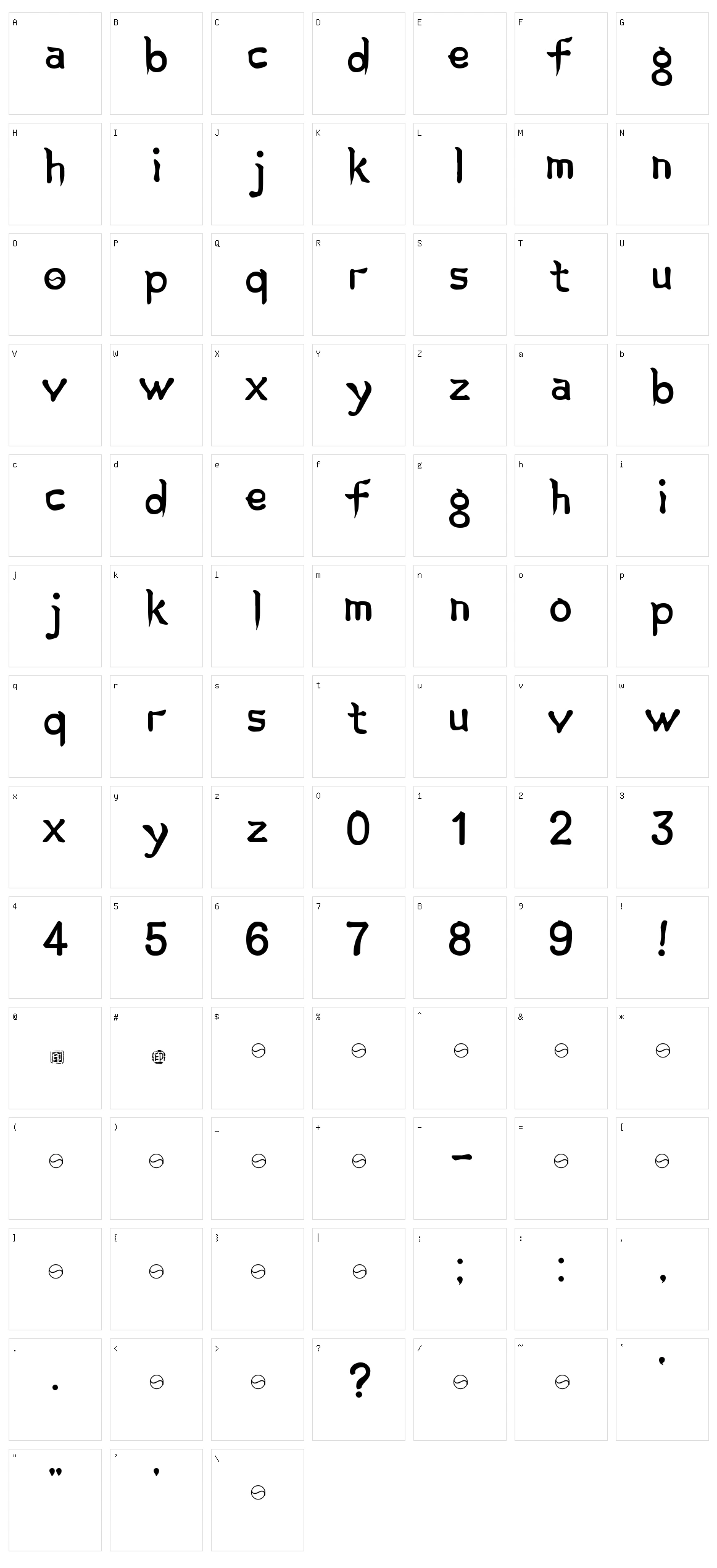
This font is based on 'Hangeul', the Korean alphabet, and reflects calligraphy typeface.
I recommend that you use this font if you want to create an oriental mood.